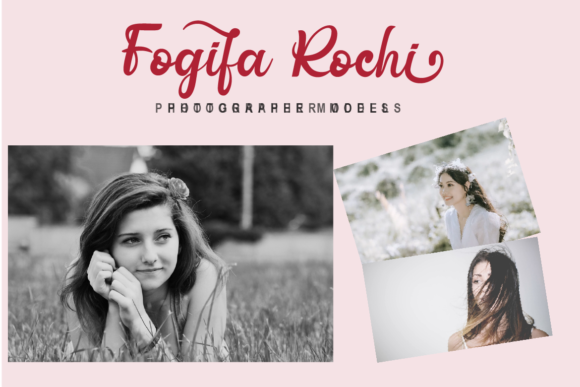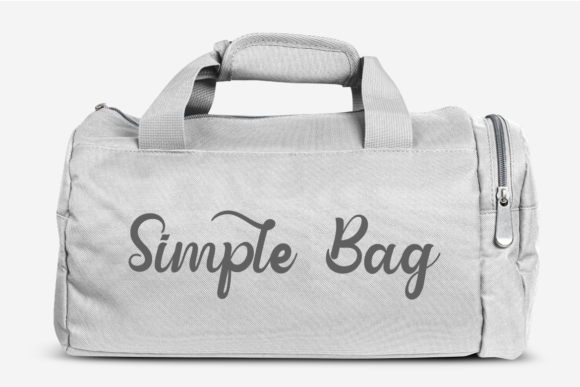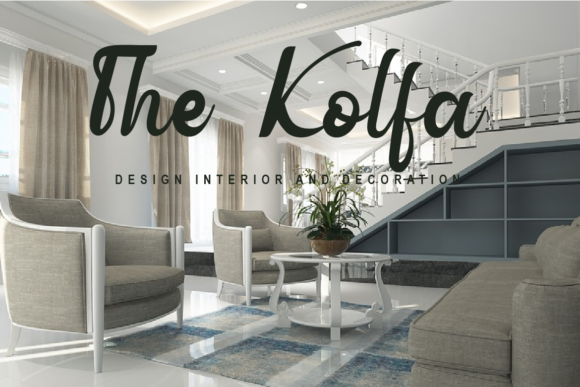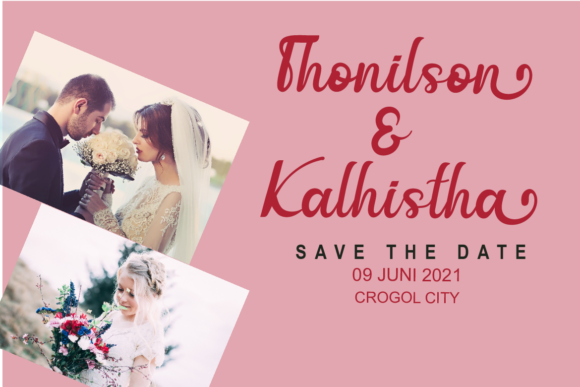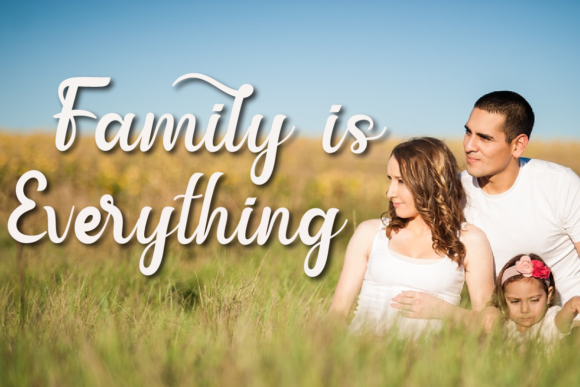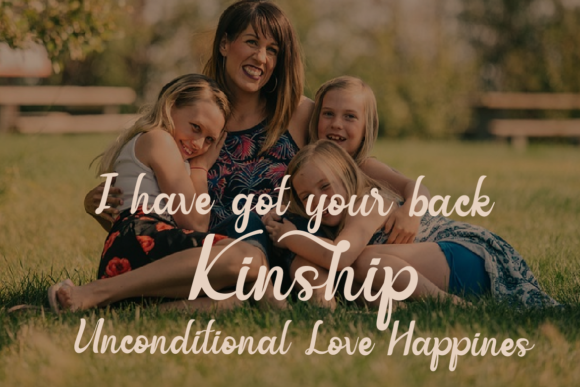
Introduction to Burkict Font
Burkict is a chic, refined script font that emanates sophistication and elegance.
Its stylish alternates and ligatures make this font the perfect match for any project .
Key Features of Burkict Font
Why Choose Burkict Font?